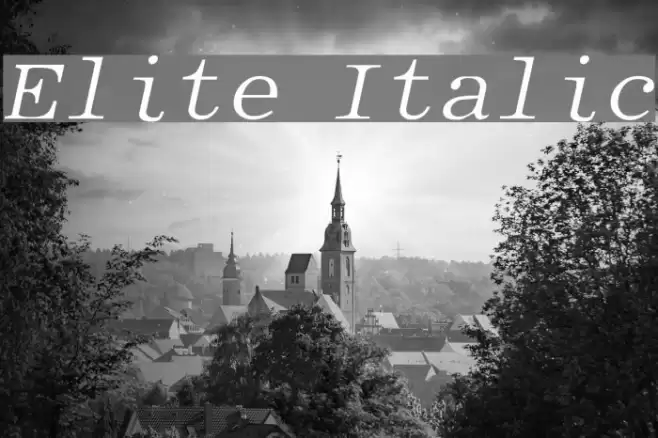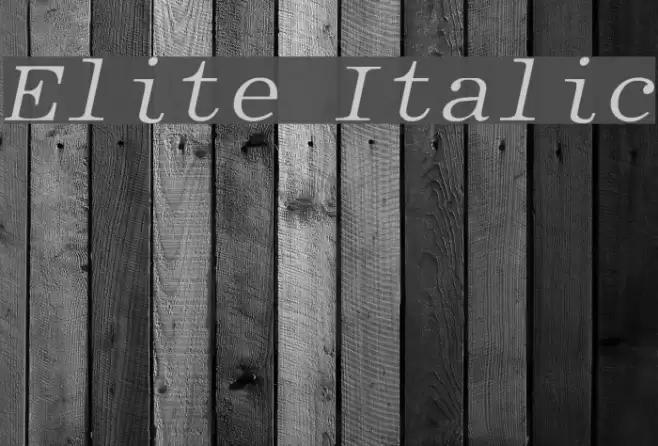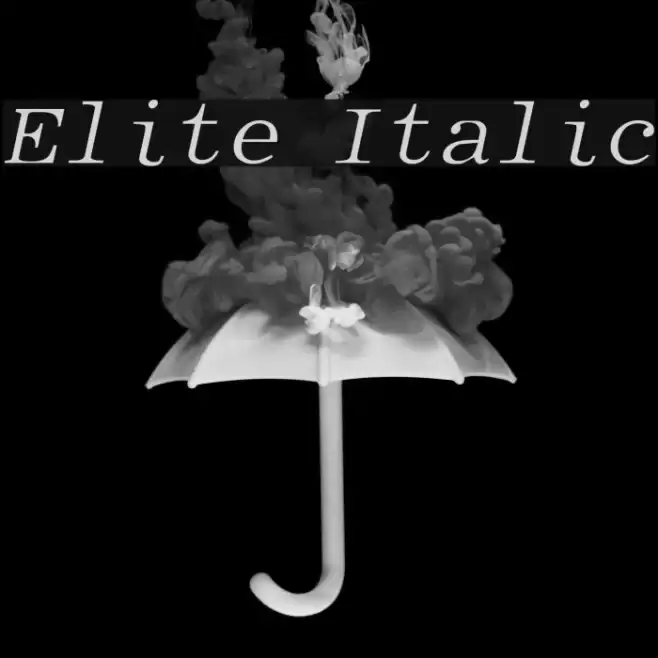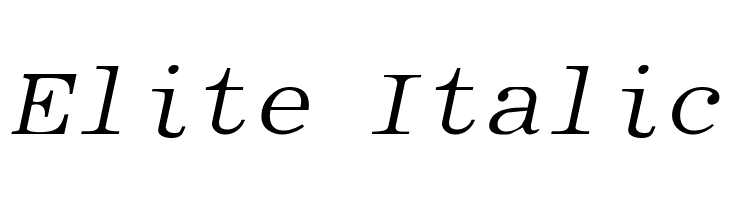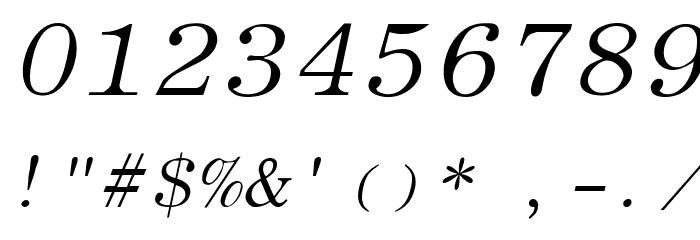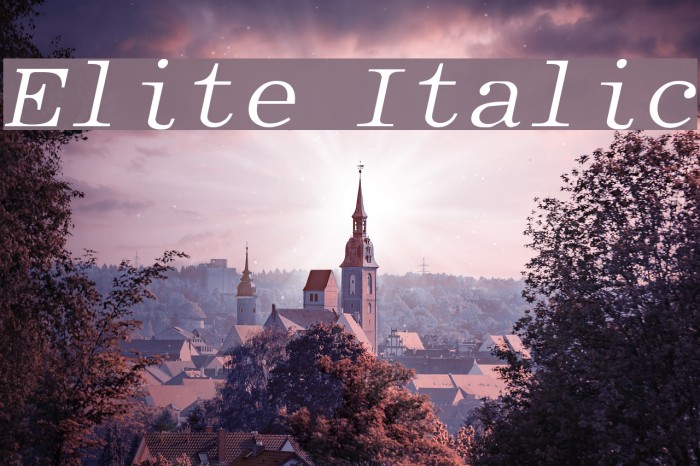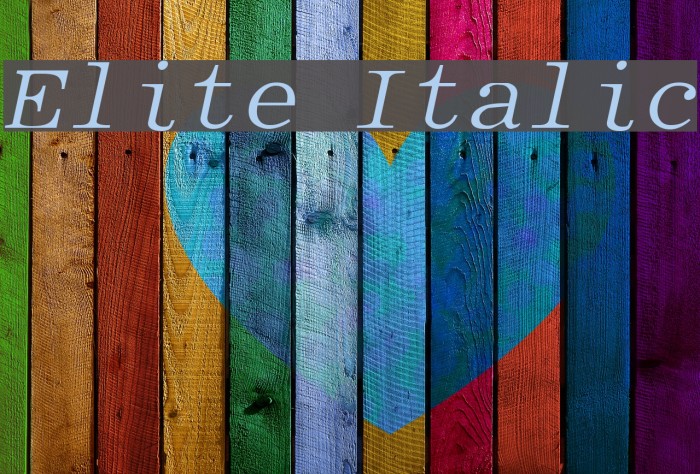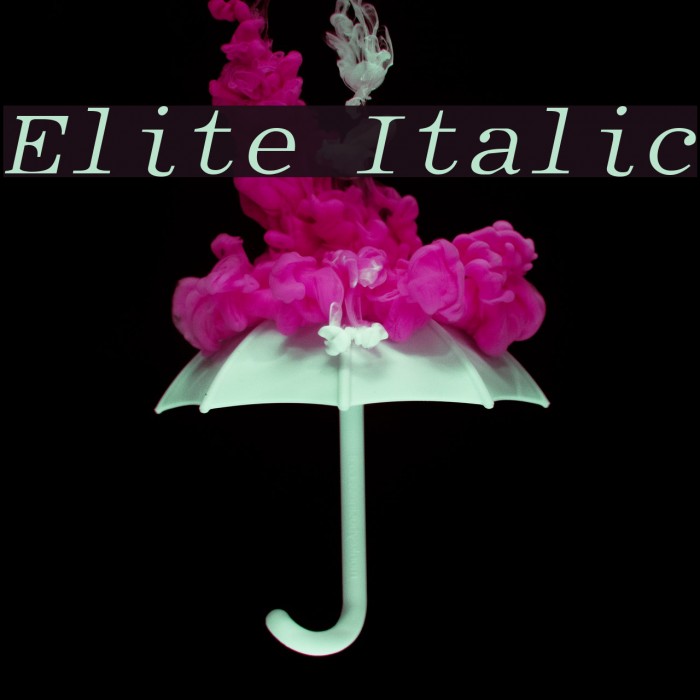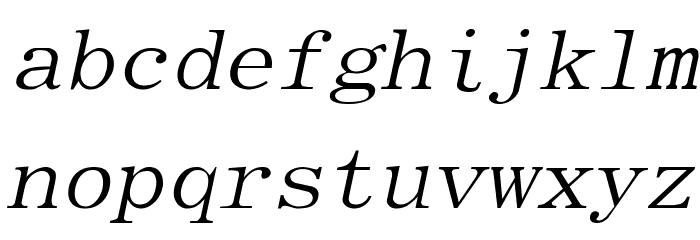
Elite Italic
This font exhibits a classic and elegant style with a distinct italic slant, giving it a sophisticated and refined appearance. The characters are well-proportioned, with a moderate contrast between thick and thin strokes, enhancing readability while maintaining a stylish flair. The serifs are pronounced yet graceful, adding to the overall traditional aesthetic. The numerals and special characters are consistent with the letterforms, ensuring a cohesive look across all text elements. This font is suitable for formal and professional applications, where a touch of elegance is desired.
A classic italic serif font with elegant proportions and moderate contrast.
- Proposed Projects: Ideal for formal invitations, elegant branding, editorial design, and classic book covers.
- Category: Serif
- Overall Style: Classic